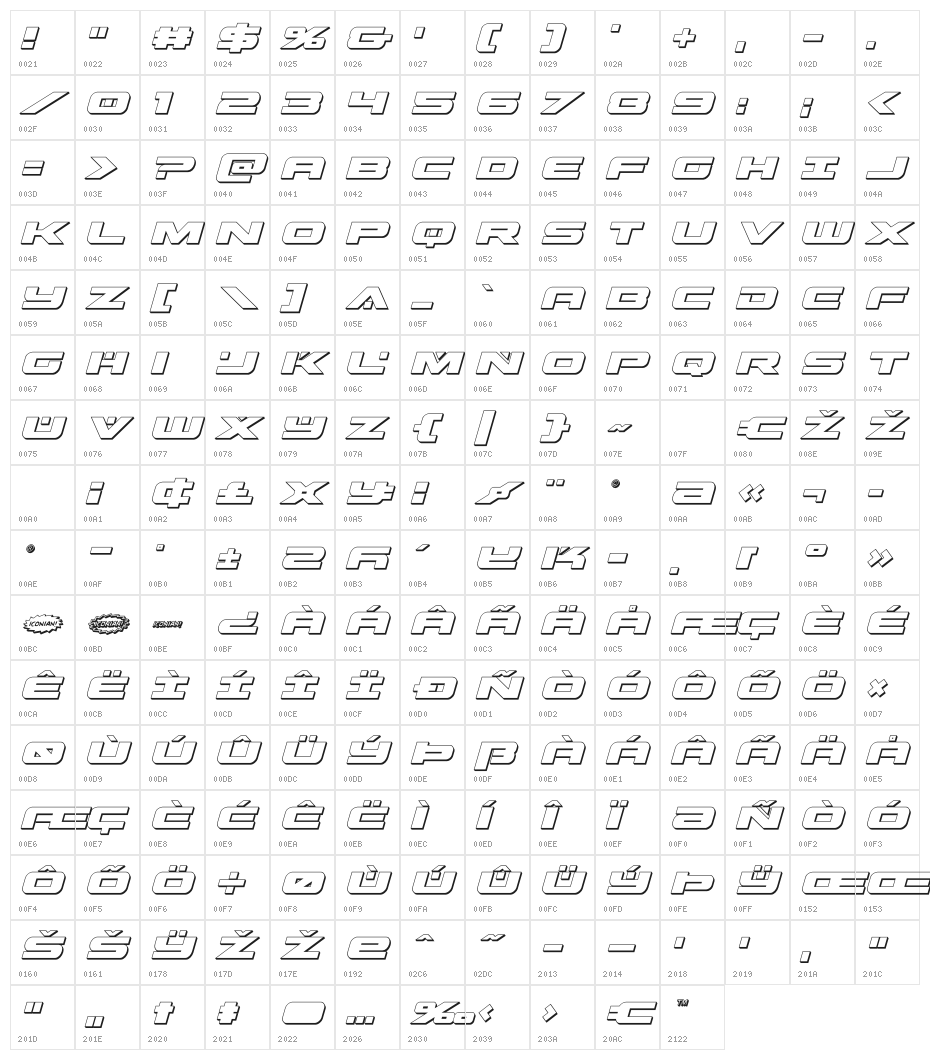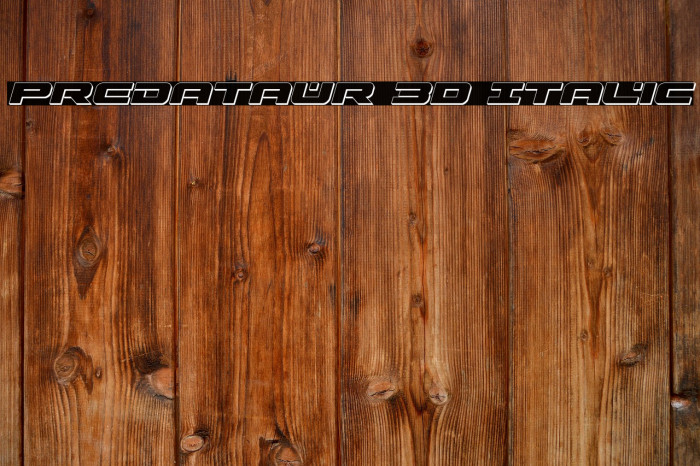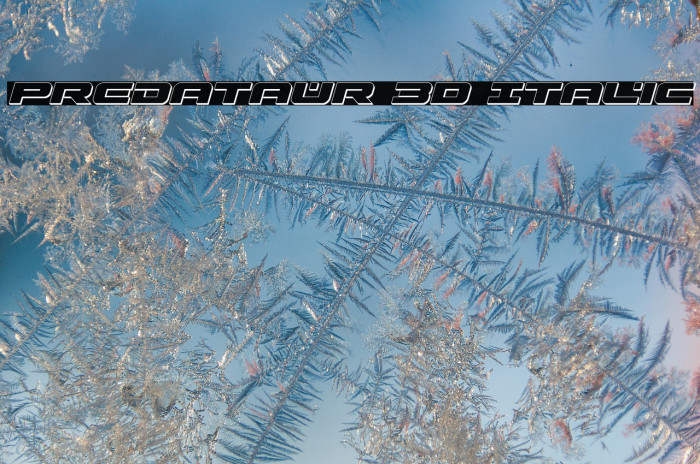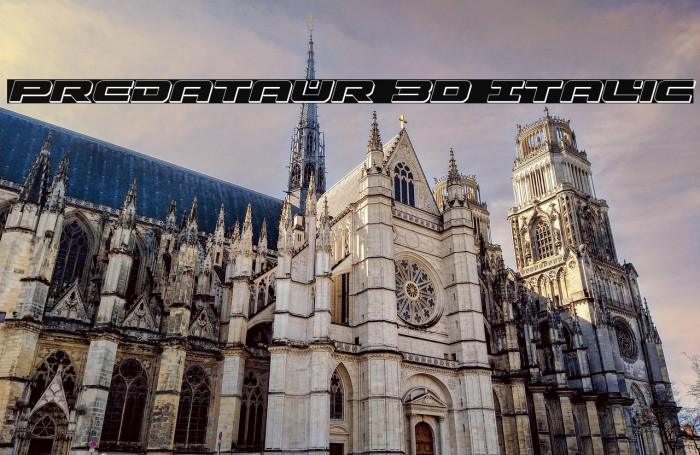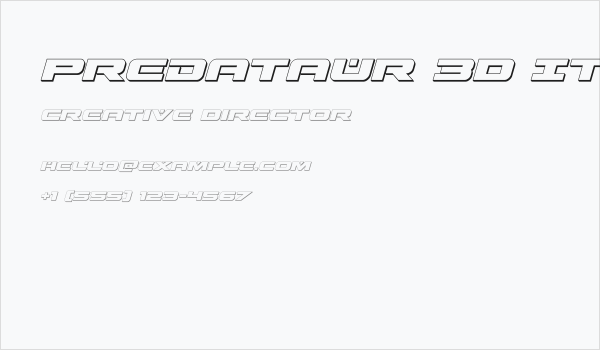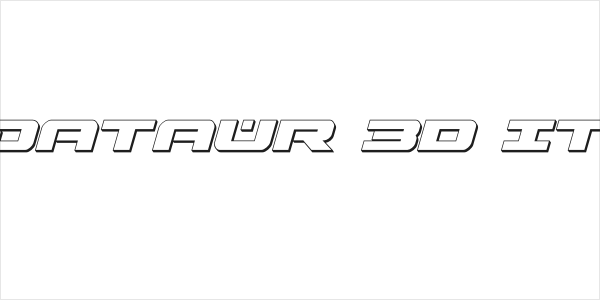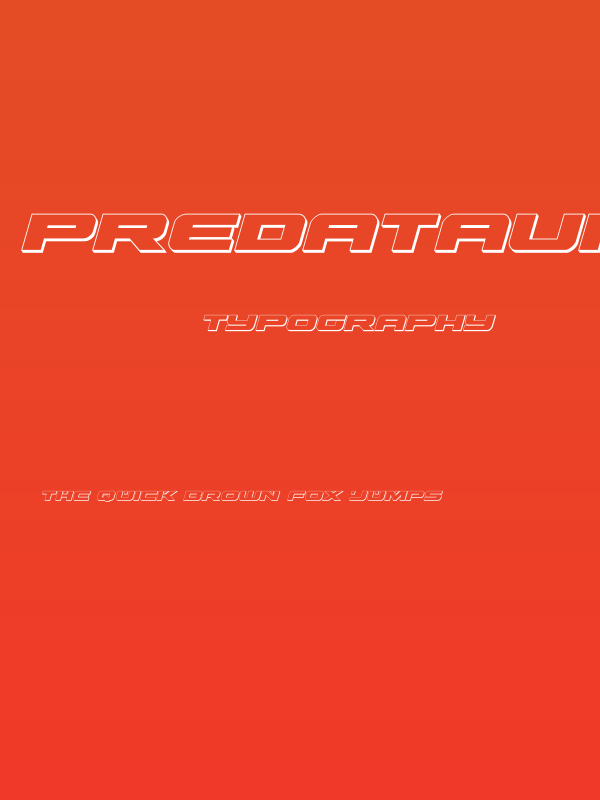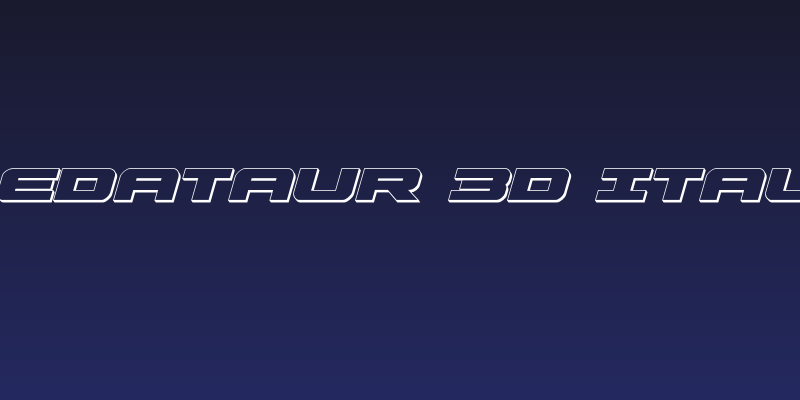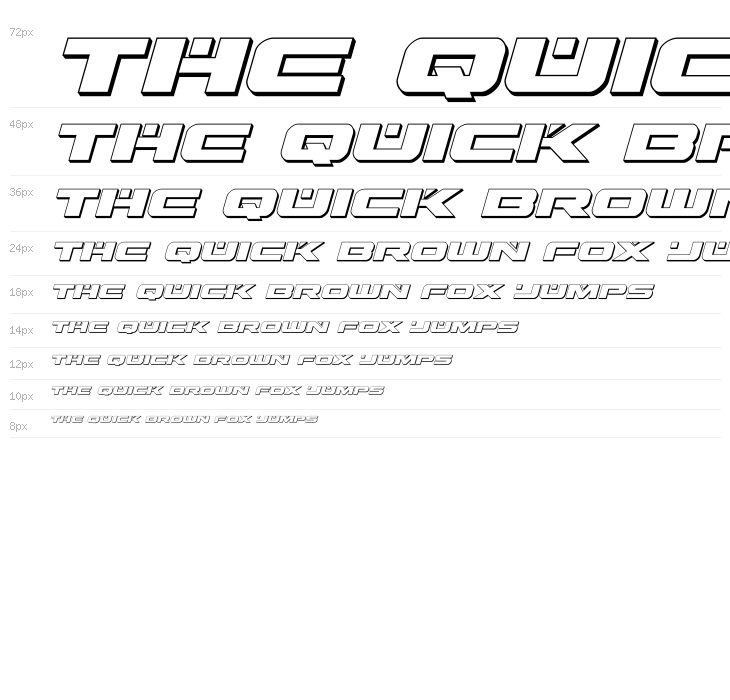
Predataur 3D Italic Font
Predataur 3D Italic Description
This font features a bold, three-dimensional design with a futuristic and dynamic appearance. The characters are outlined, giving them a hollow look that enhances the 3D effect. The italic slant adds a sense of motion and speed, making it ideal for projects that require a modern and energetic feel. The uppercase and lowercase letters maintain a consistent style, with sharp angles and clean lines. The numerals and special characters are designed to match the overall aesthetic, ensuring a cohesive look across all text elements.
| Proposed Projects | Ideal for sci-fi themed designs, video game titles, tech branding, and dynamic posters. |